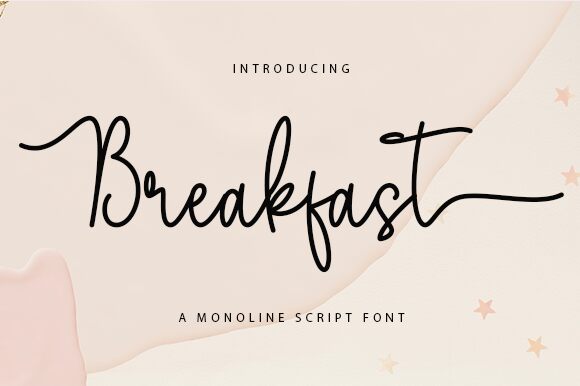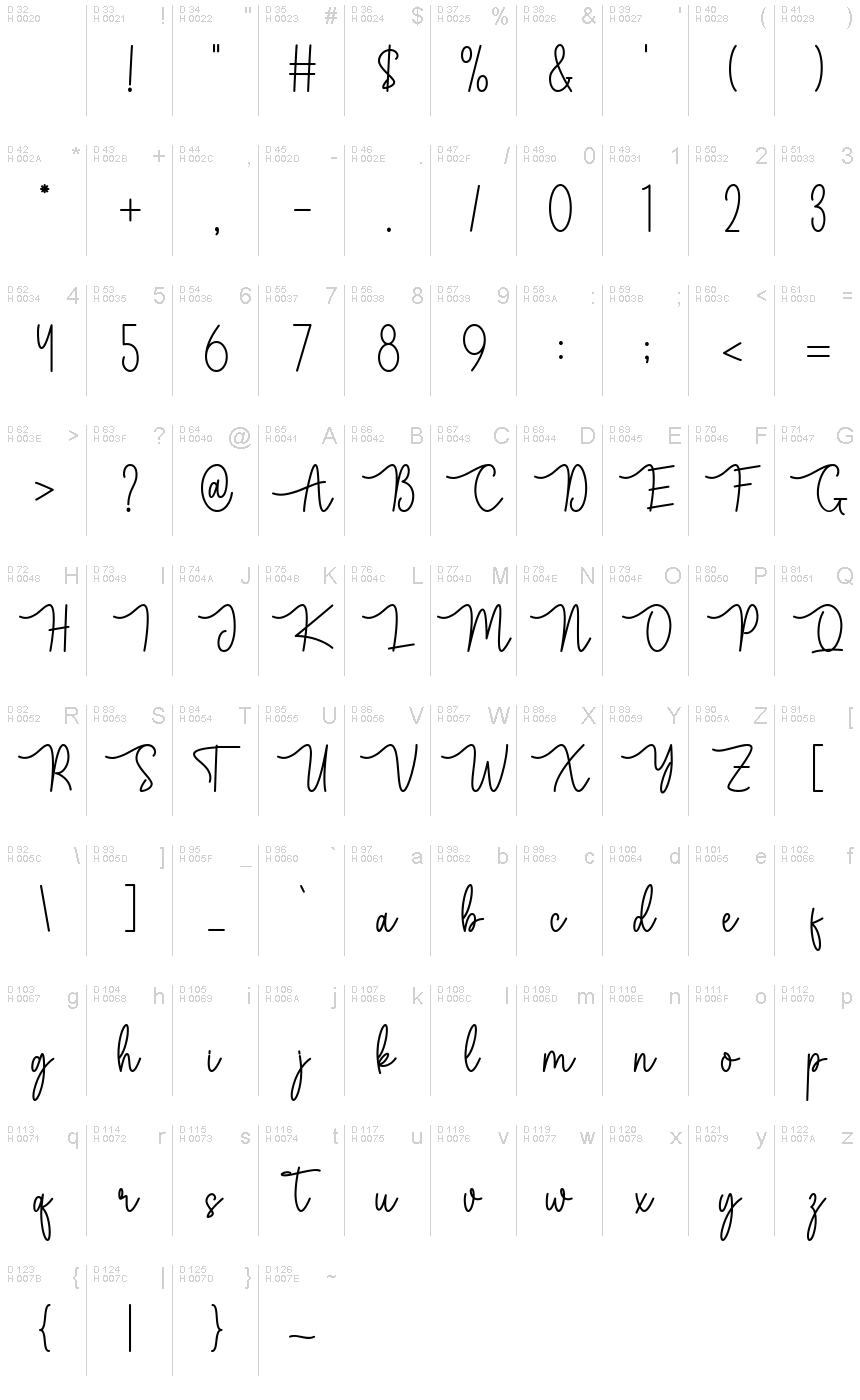
Breakfast
Breakfast, envisioned by Wahyu Studio, embodies the essence of a personal touch with its handwritten style. Crafted with a light weight, this font dances between casual elegance and playful charm. The fluidity of its characters suggests a relaxed morning script, making it an ideal choice for designs that require a hint of intimacy and warmth. Breakfast's aesthetic appeal lies in its ability to convey authenticity and approachability, as if each word were penned with care over morning coffee.
This font is perfect for projects that aim to establish a connection through graceful typography.